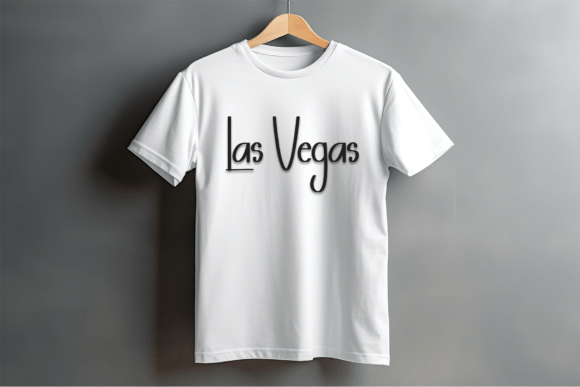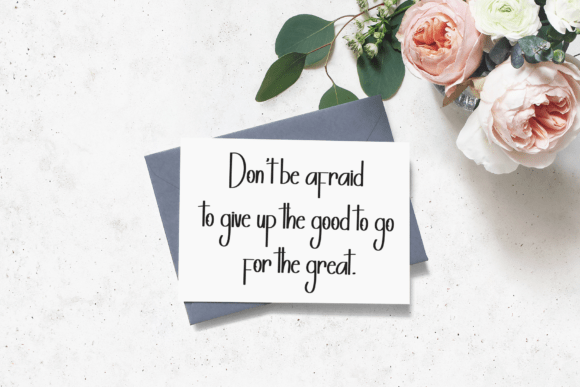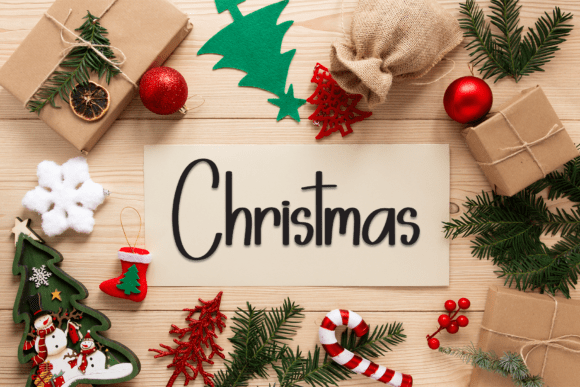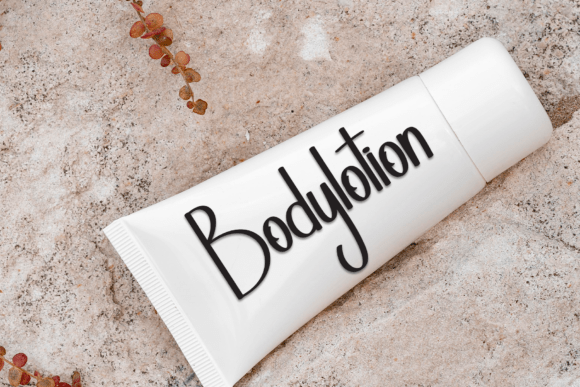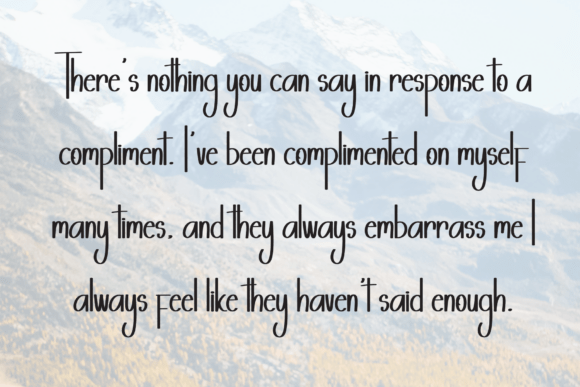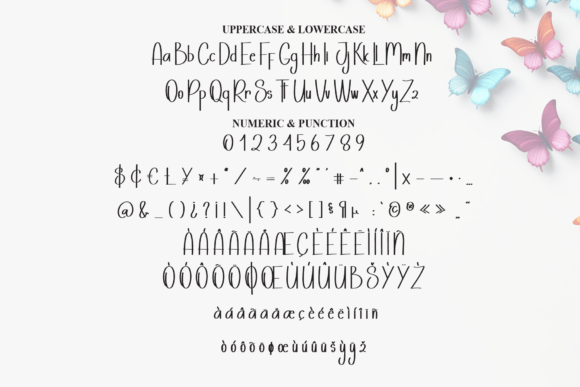
Introduction to Simple Butterfly Font Font
Fonts play a crucial role in design, and the Simple Butterfly Font font is a typeface that brings both character and versatility to any project. Whether you’re working on a branding project, a website, or a print design, the Simple Butterfly Font font offers a unique style that can elevate your work.
Simple Butterfly is a casual handwritten font that radiates warmth and authenticity.
Featuring smooth strokes, relaxed curves, and naturally balanced letterforms, it captures the charm of everyday handwriting with a clean and approachable style Ideal for quotes, branding, packaging, and social media posts, it adds a personal and friendly touch to any design.
Key Features of Simple Butterfly Font Font
Why Choose Simple Butterfly Font Font?
The Simple Butterfly Font font is more than just a typeface – it’s a design tool that helps you communicate your message with style and clarity. Its unique character set and versatile design make it suitable for a wide range of applications, from elegant invitations to bold headlines.
With its carefully crafted letterforms and balanced proportions, the Simple Butterfly Font font ensures readability and visual appeal across all mediums.
What makes Simple Butterfly Font font special?
The Simple Butterfly Font font stands out with its unique design, exceptional readability, and versatility across various design applications.